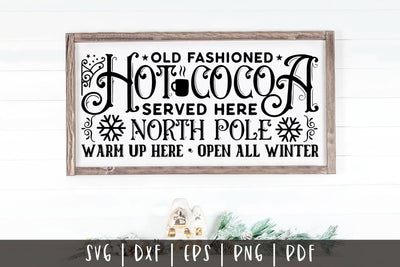
Old Fashioned Hot Cocoa, Vintage Christmas SVG
Capture the spirit of a bygone era with our easy-to-use Vintage Christmas Sign SVG design. Perfect for adding nostalgic charm to your holiday decor and crafts.
Capture the spirit of a bygone era with our easy-to-use Vintage Christmas Sign SVG design. Perfect for adding nostalgic charm to your holiday decor and crafts. Use it for creating vintage style signs, wall decals, farmhouse signs, home signs, and more.